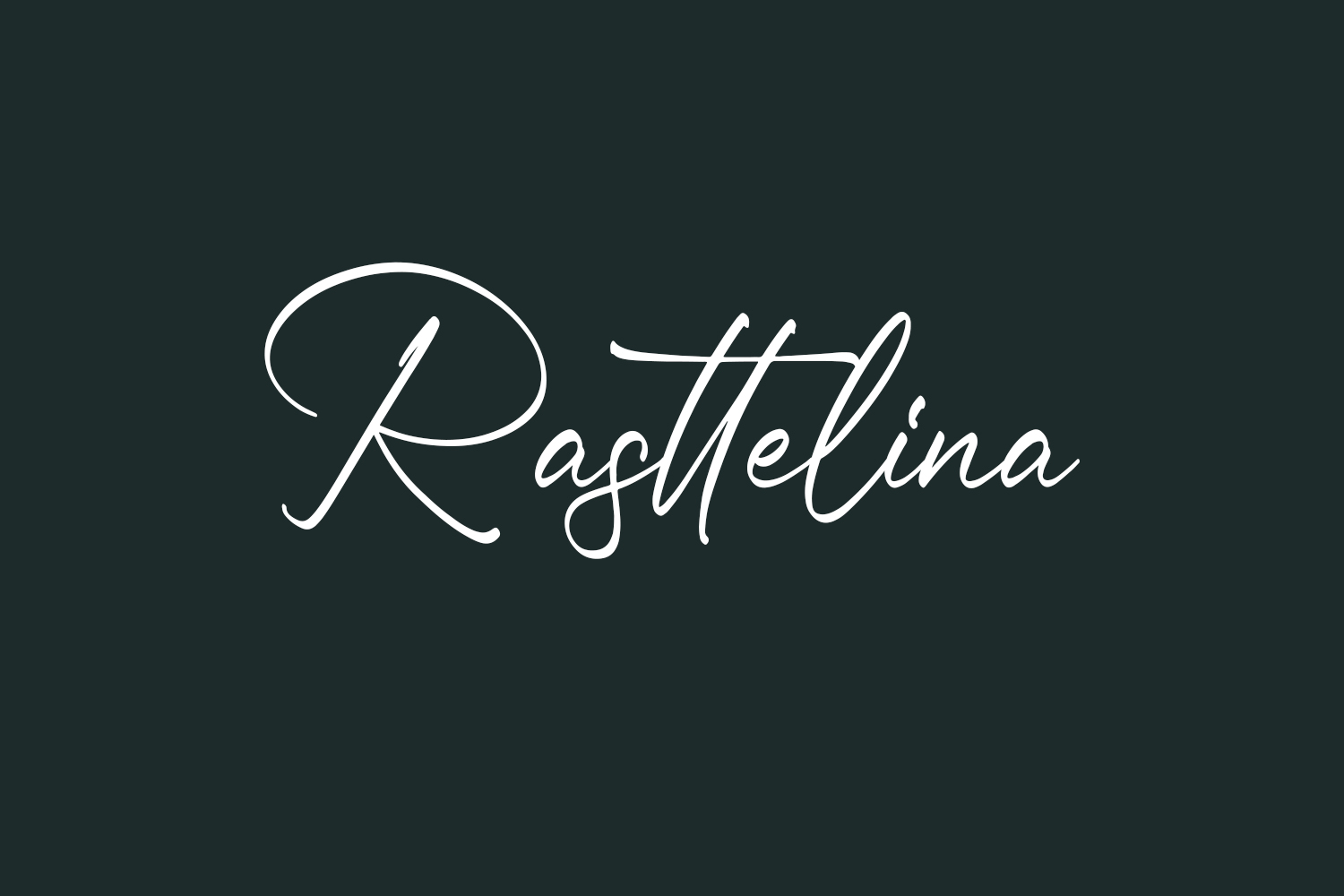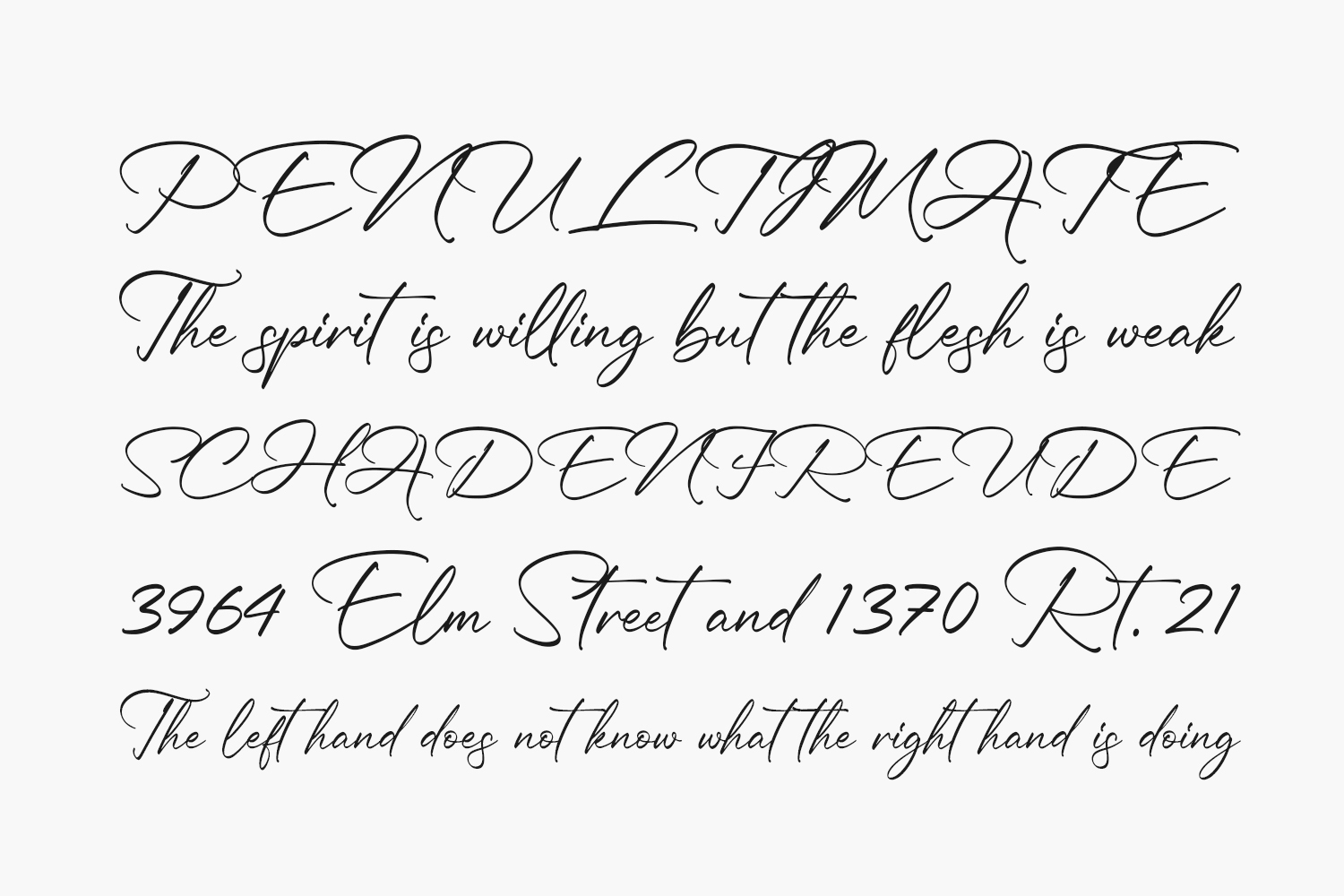
Introducing Rasttelina Free Font, a sophisticated script font boasting a modern ambiance and flawless form, drawing inspiration from the timeless elegance of classic calligraphy. Rasttelina Free Font was designed by Rissyletter Studio and is free for personal use only. Please purchase the full version for commercial use.